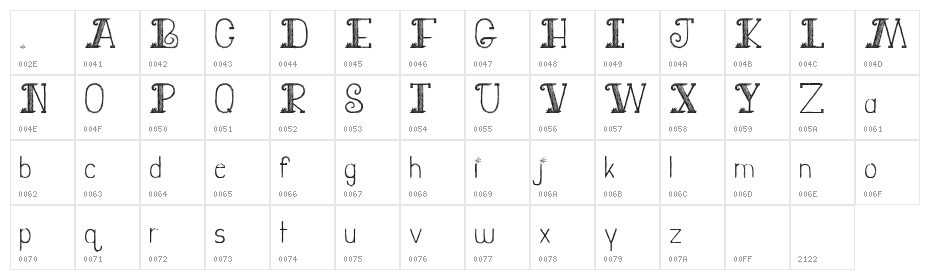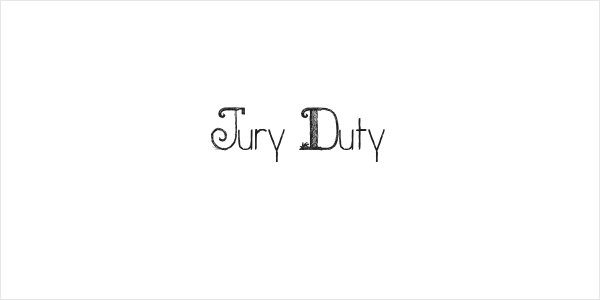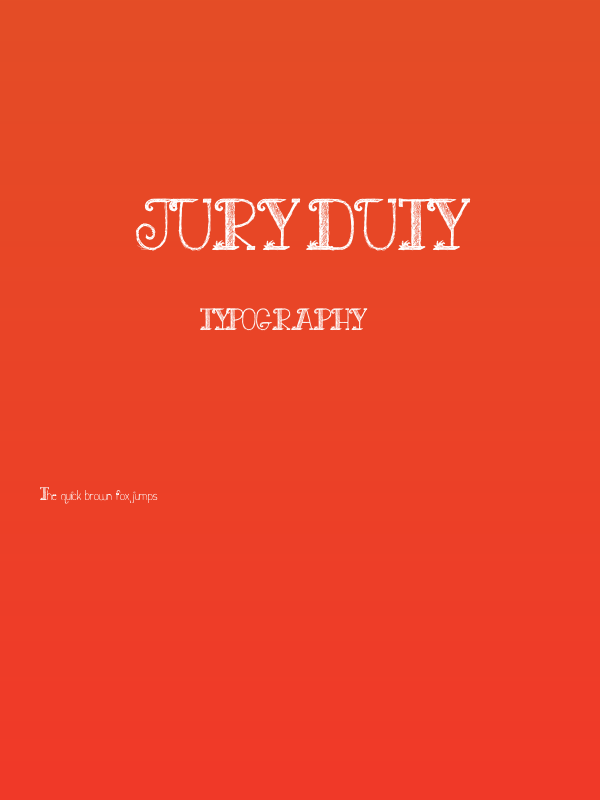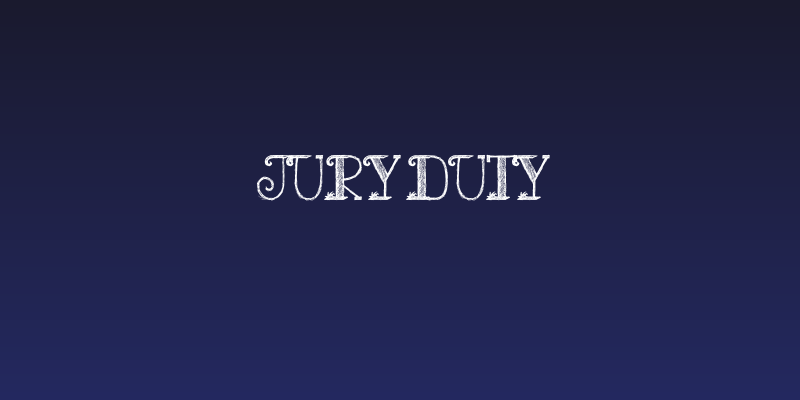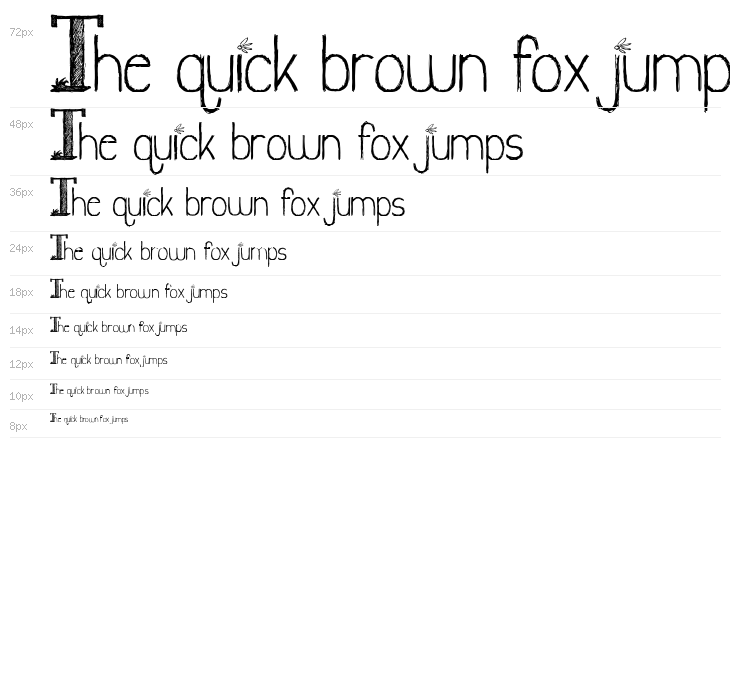
Jury Duty Font
Jury Duty Description
This font features a unique, decorative style with intricate details that give it a hand-drawn appearance. The uppercase letters are bold and embellished with swirling patterns and subtle textures, creating a whimsical and artistic look. The lowercase letters maintain a more straightforward design but still carry a touch of the decorative elements seen in the uppercase set. The overall style is playful and creative, making it suitable for projects that require a distinctive and eye-catching typeface. The numbers and special characters follow the same decorative theme, ensuring consistency across all glyphs.
| Proposed Projects | Ideal for artistic projects, invitations, posters, and branding that require a unique and playful touch. |